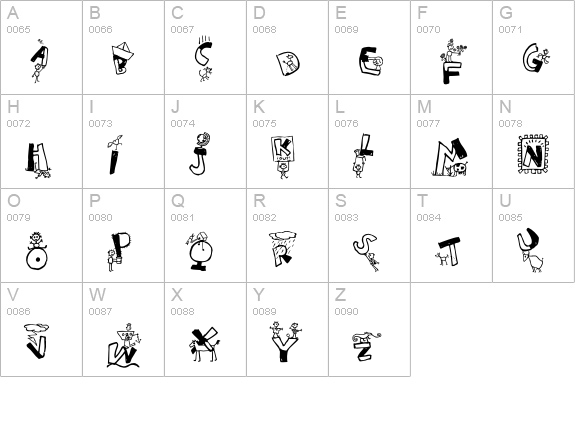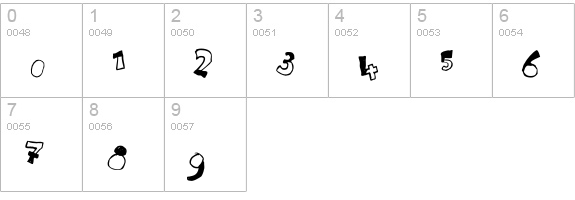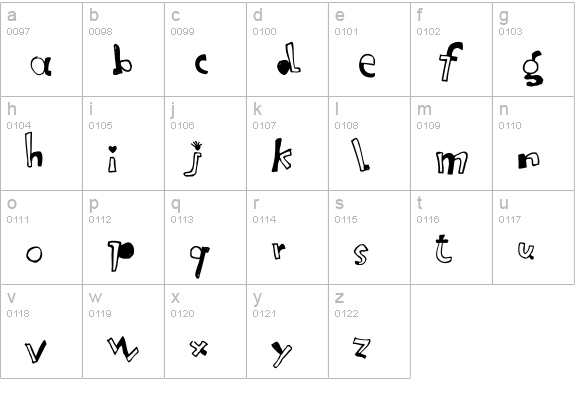
Introducing Letterine-Teatro, a captivating font that effortlessly combines elegance with a touch of playfulness. With its unique and intricate letterforms, this font is sure to catch the eye and leave a lasting impression. Designed with utmost precision and attention to detail, Letterine-Teatro is perfect for a wide range of creative projects. Whether you're designing logos, posters, invitations, or any other type of visual content, this font will add a touch of sophistication and charm. What sets Letterine-Teatro apart is not only its stunning aesthetics but also its versatility. It can seamlessly adapt to both formal and informal settings, making it suitable for various design styles and themes. But what truly sets Letterine-Teatro apart is that it is free. Yes, you read that right. This extraordinary font is freely available to download at FontsMarket.com. Now you can add a touch of elegance and creativity to your projects without breaking the bank. So why wait? Download Letterine-Teatro today and let your imagination run wild. Whether you're a professional designer or simply someone who appreciates beautiful typography, this font is a must-have in your collection. Embrace the freedom to create stunning designs with Letterine-Teatro.